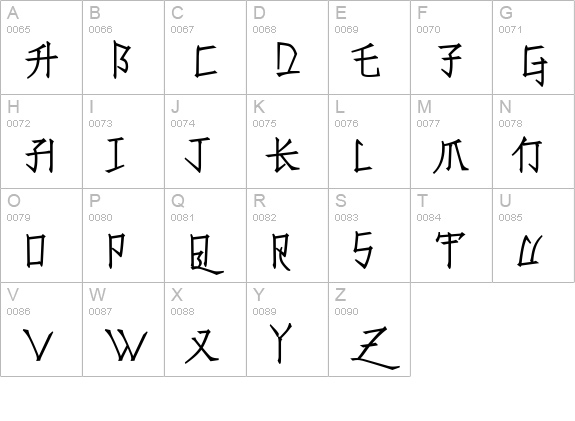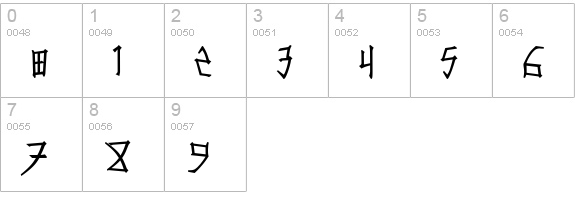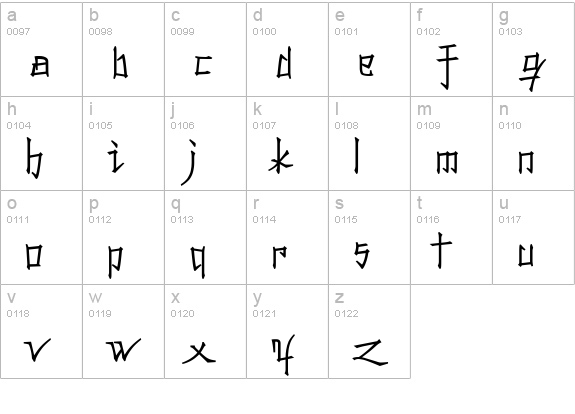
Konfuciuz Font Details
Konfuciuz font is a modern and stylish typeface that exudes elegance and sophistication. Its sleek lines and unique letterforms make it perfect for various design projects, from branding to editorial design. The font offers a perfect balance between classic and contemporary styles, making it versatile and suitable for a wide range of applications. What sets Konfuciuz font apart is not only its aesthetic appeal but also its accessibility. This high-quality font is available for free download exclusively at FontsMarket.com, allowing designers and enthusiasts to access its beauty and functionality without any cost. Whether you're working on a personal project or a commercial venture, Konfuciuz font is sure to elevate your designs and leave a lasting impression. Download it today and add a touch of sophistication to your creations.